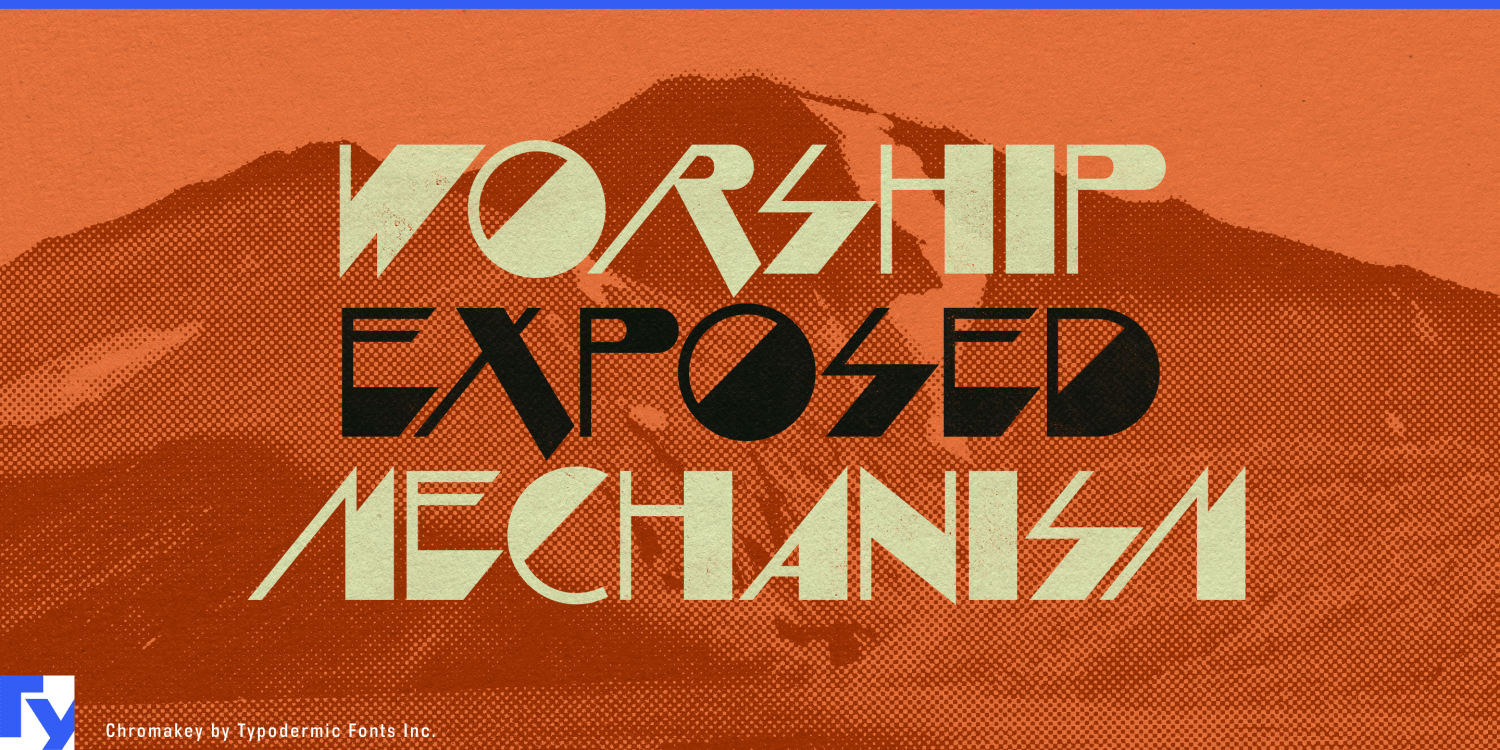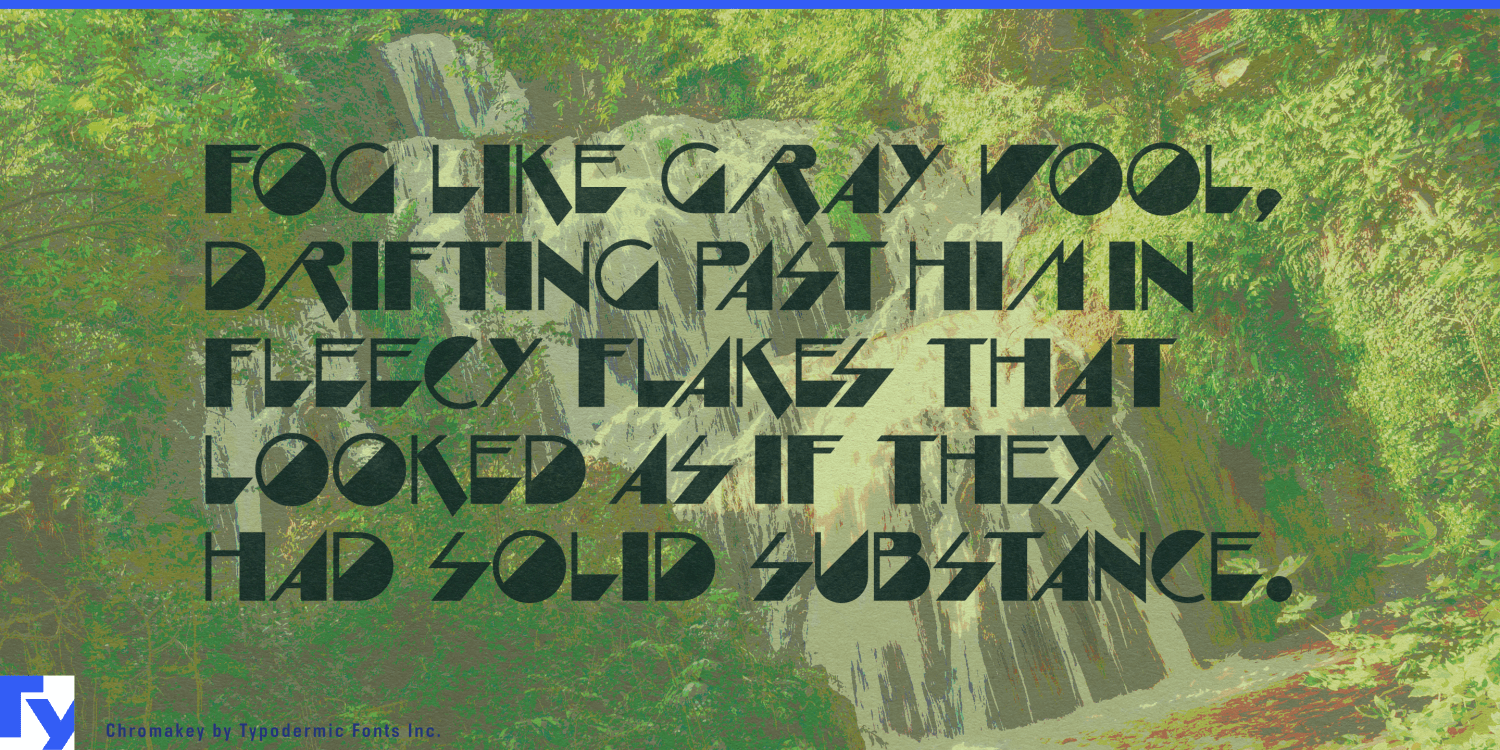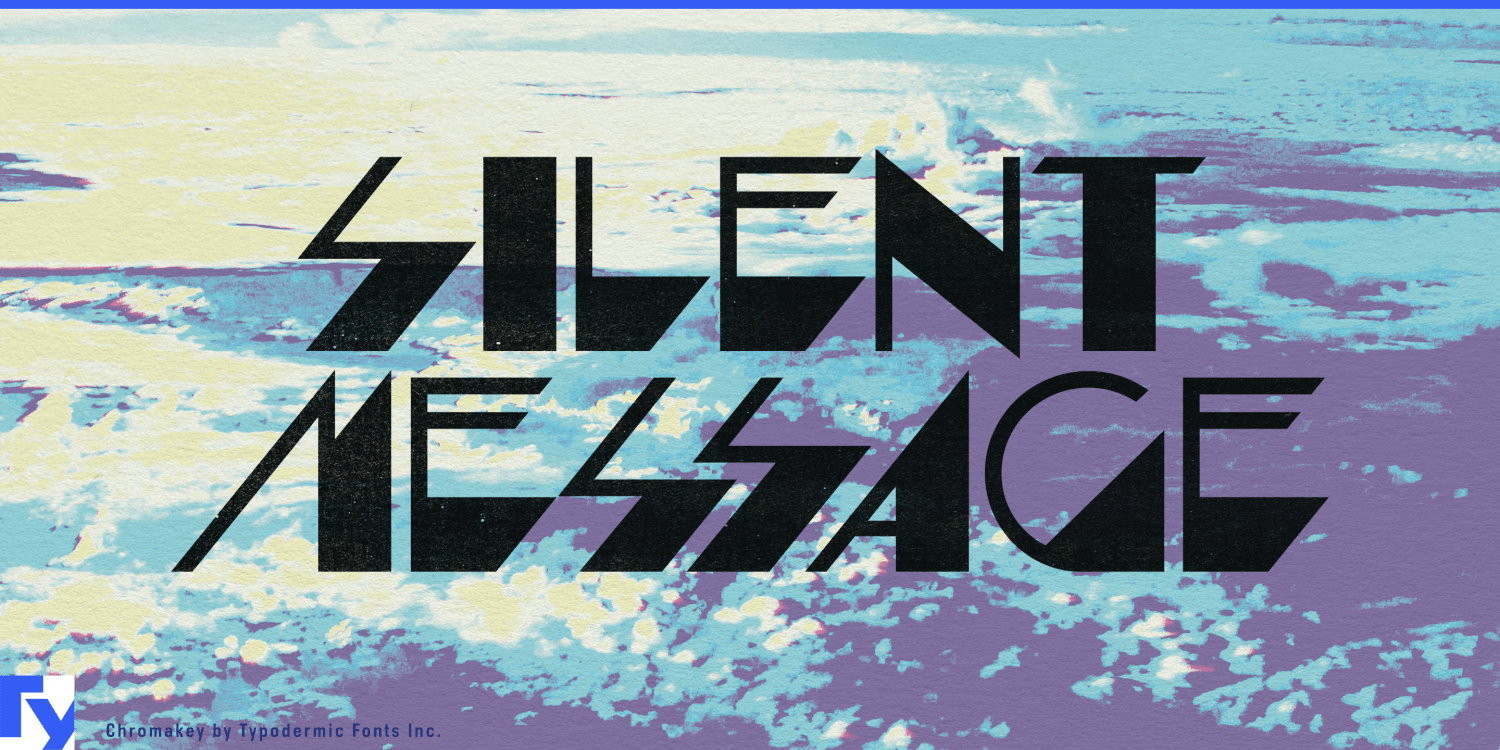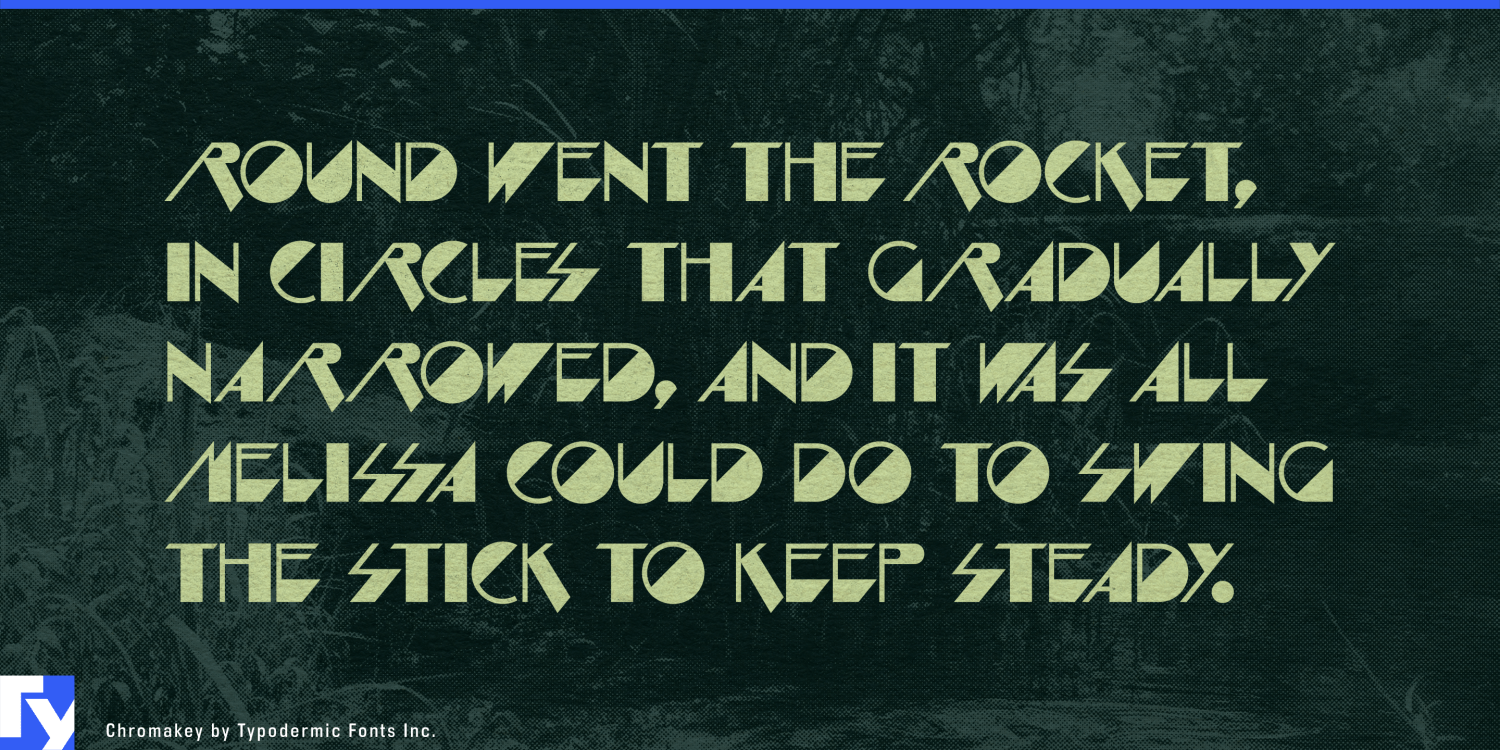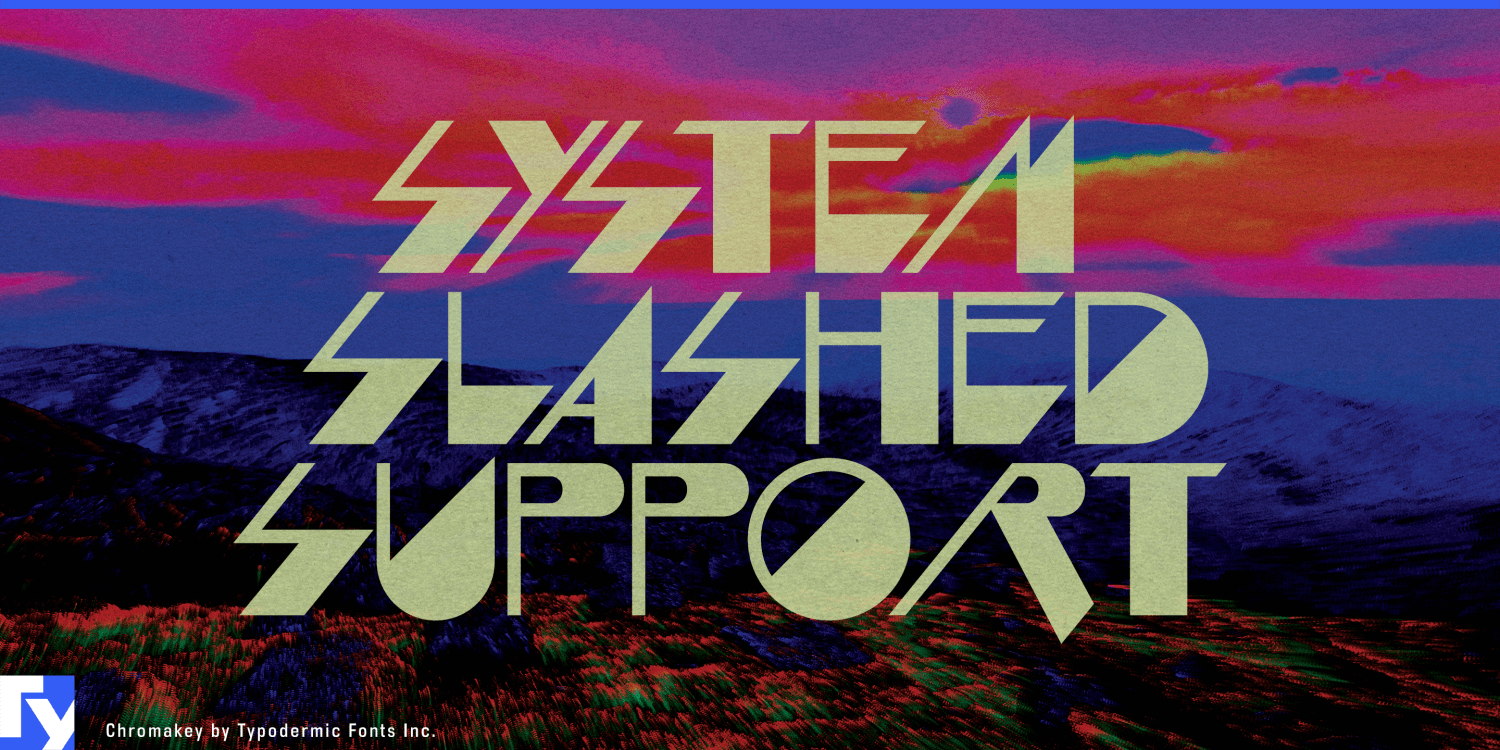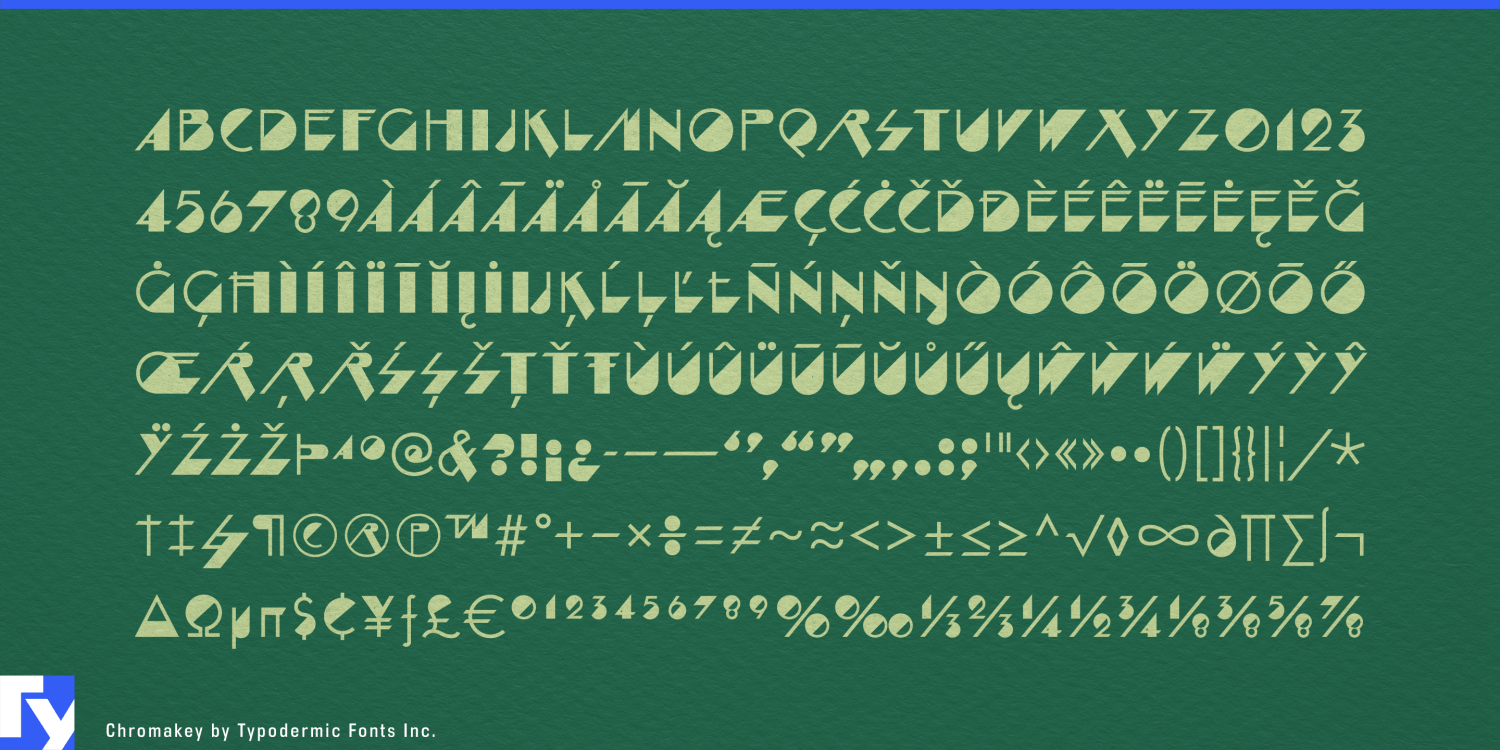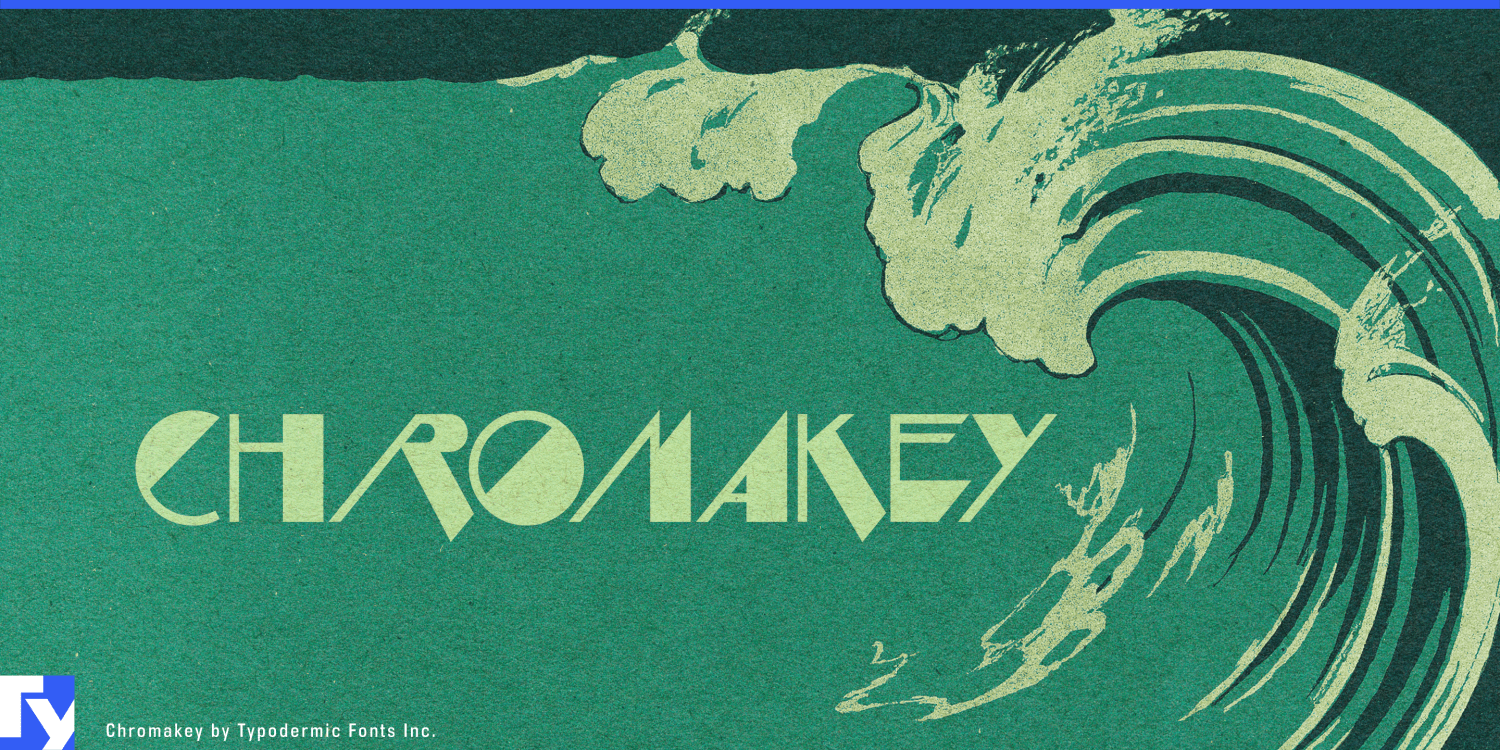
Chromakey
About Chromakey
Step into the future with Chromakey, a headline typeface that fuses classic video game aesthetics with sleek, futuristic design. Inspired by iconic gaming box art, Chromakey blends sci-fi angularity and Art Deco elegance to create a truly unique visual…